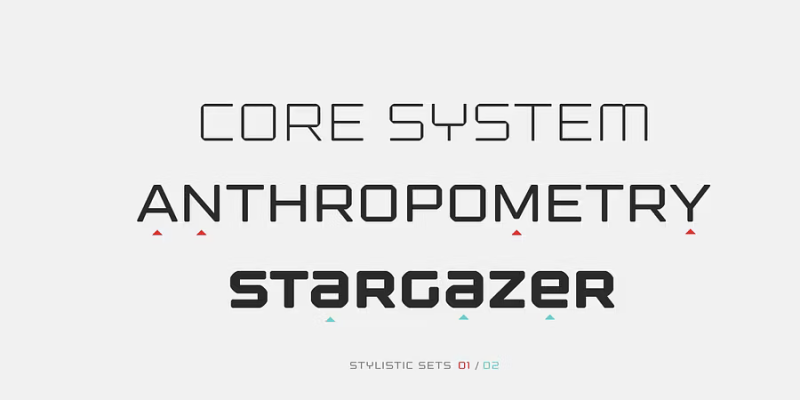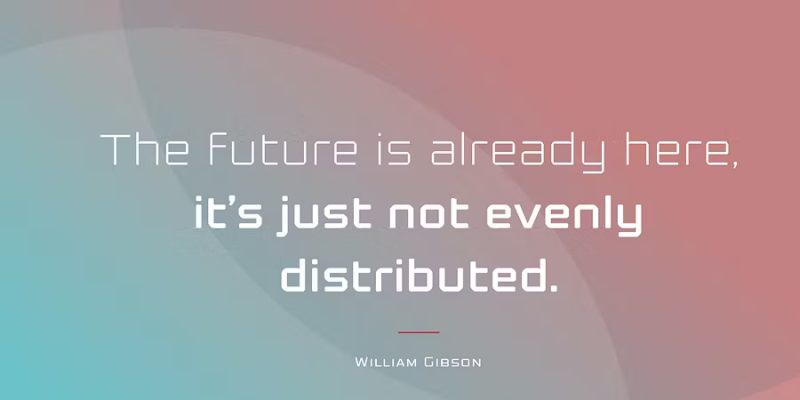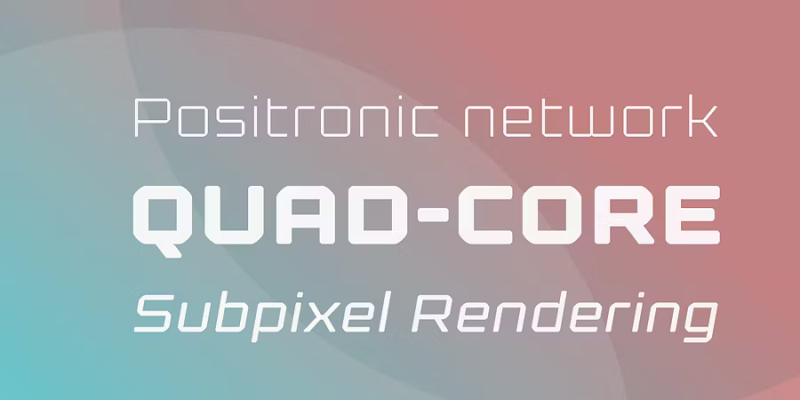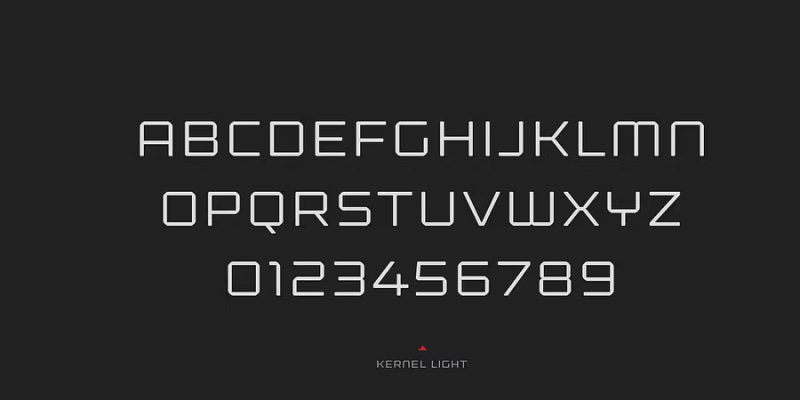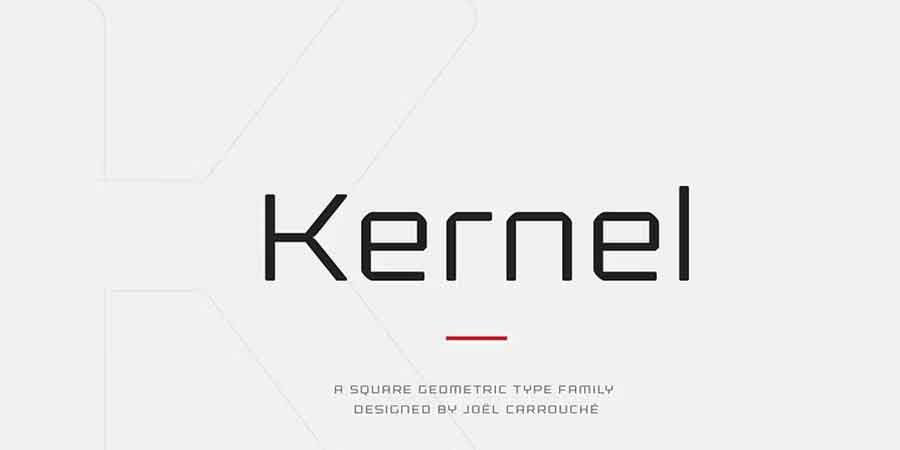
Kernel Font Family
Kernel is a square geometric type family in six weights with matching obliques and small caps. The design mixes slightly rounded terminals and shoulders with square counterforms, giving the shapes a strong masculine and futuristic look, great for applications like innovation, technology, sports and of course, sci-fi ! The fonts, delivered in OpenType format, include diacritics for most European languages and come with a variety of OpenType features : two stylistic sets, tabular figures, case-sensitive forms, fractions and more.
Kernel Font Family is a Sans Serif Fonts font that brings a professional and versatile look to your projects. Kernel is a square geometric type family in six weights with matching obliques and small caps.